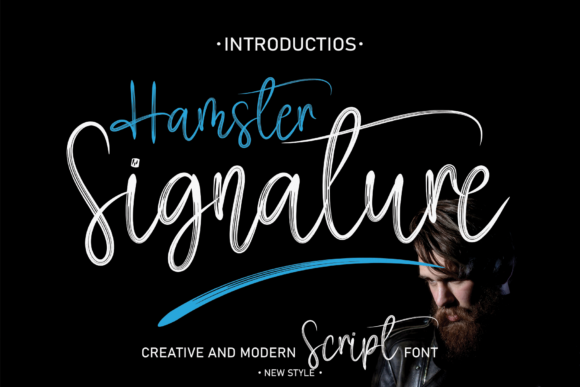
About Hamster Signature Font
Hamster Signature is a beautiful and light handwritten font with a unique feel and a stunning impact. It will add a luxury spark to any design project that you wish to create! Add it confidently to your favorite creations and let yourself be amazed by the outcome generated.Â